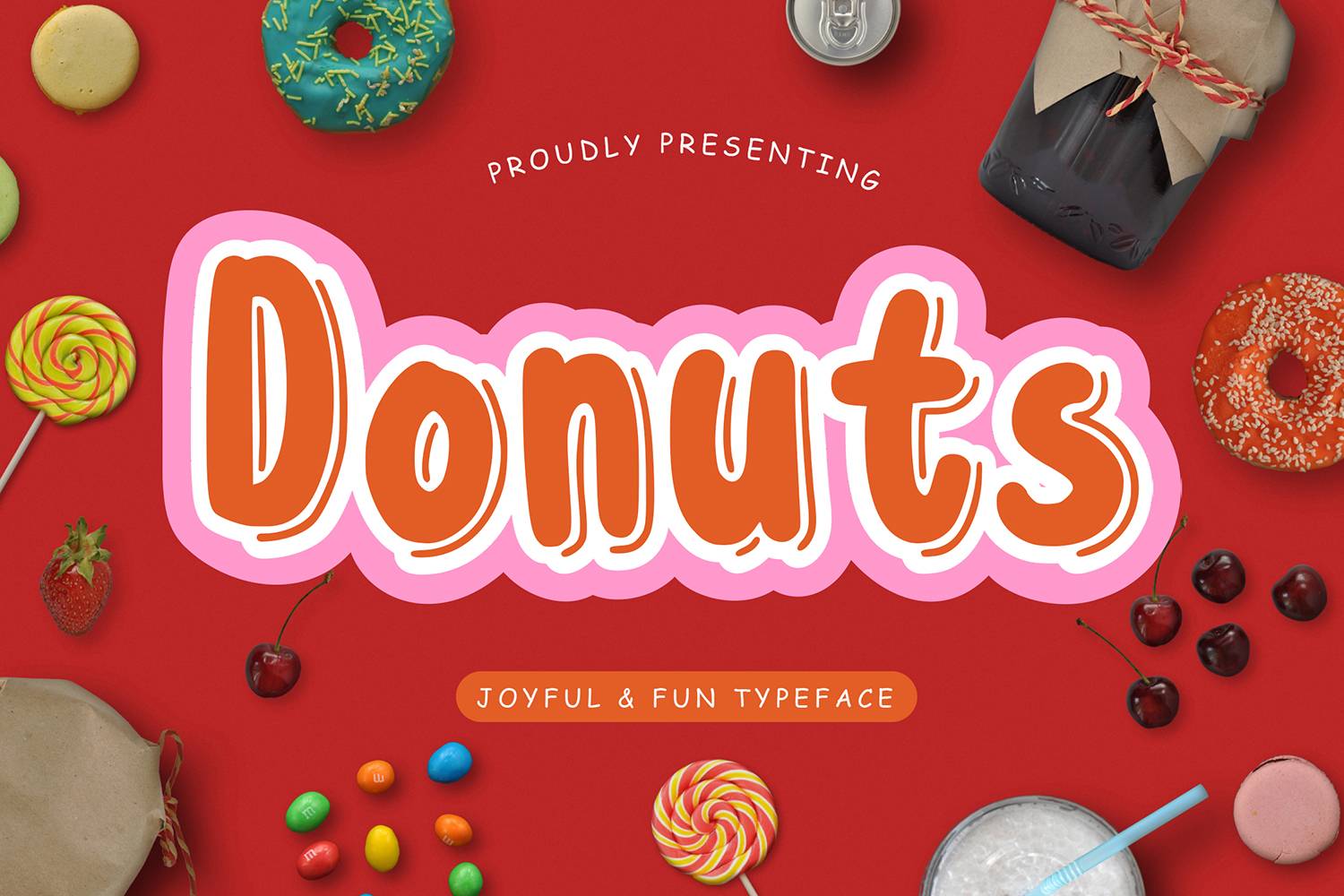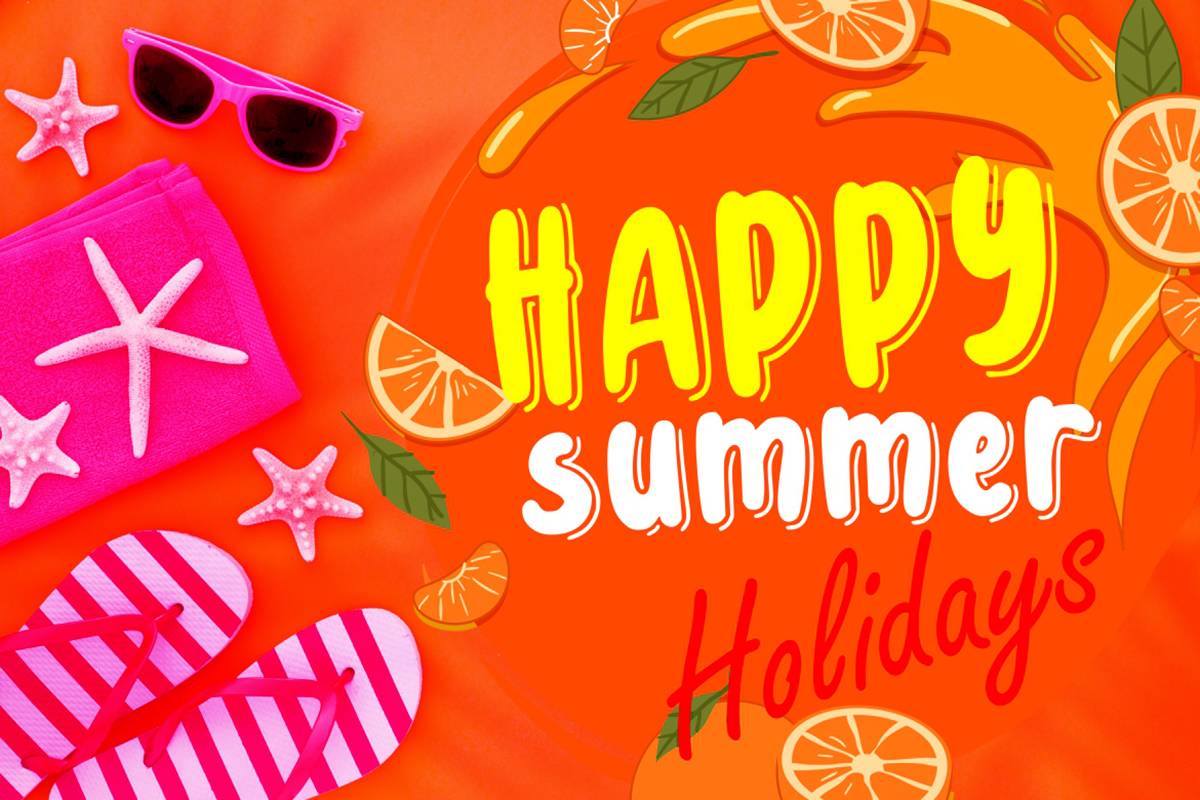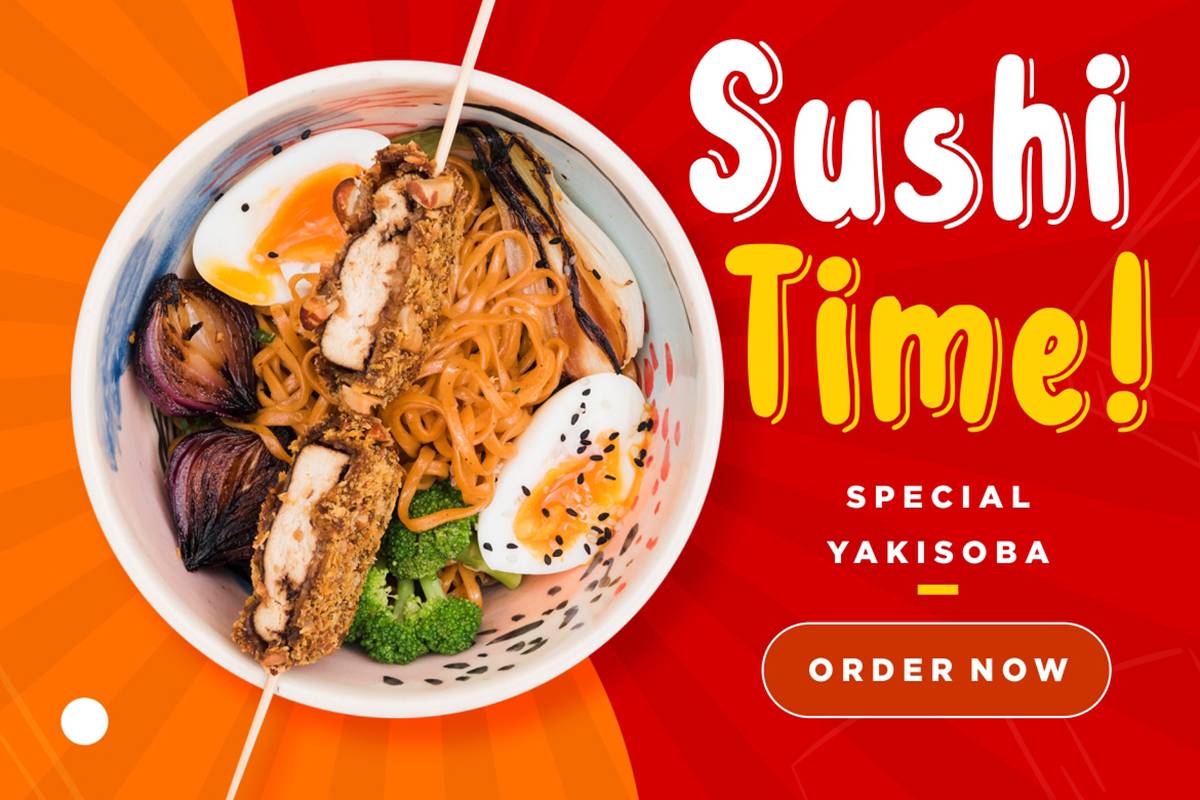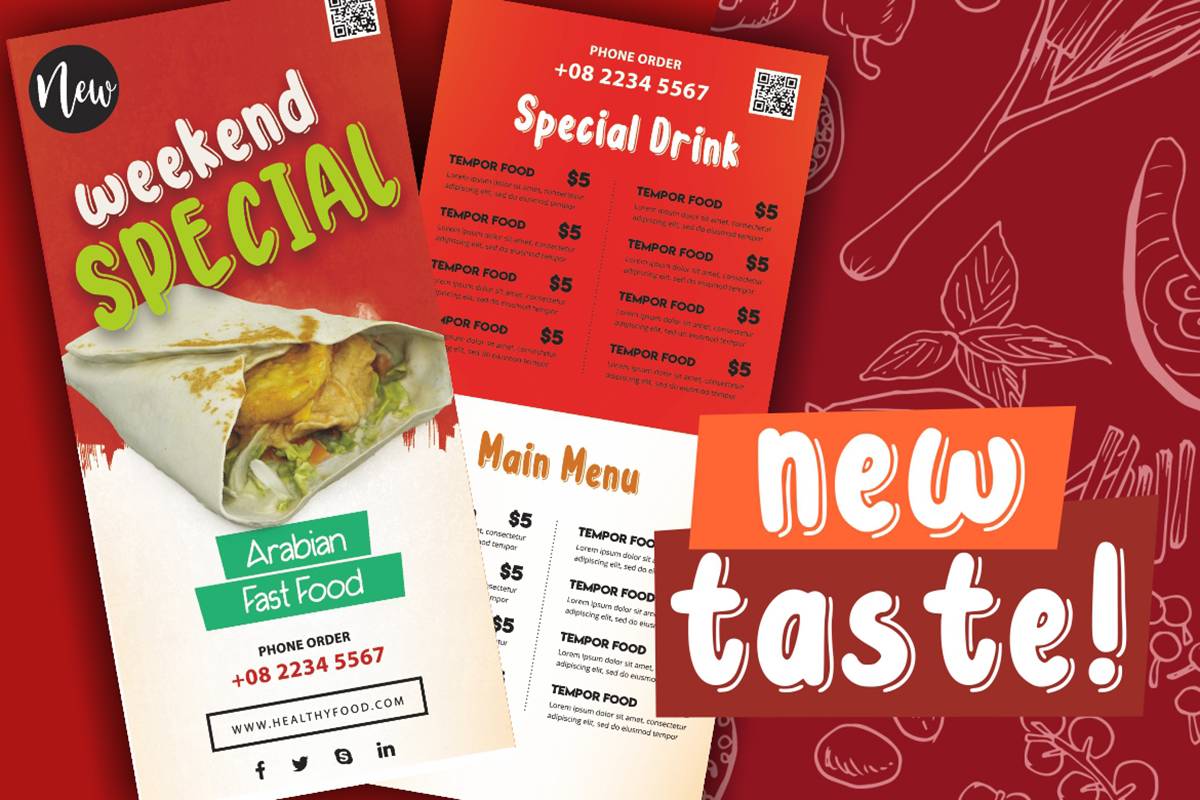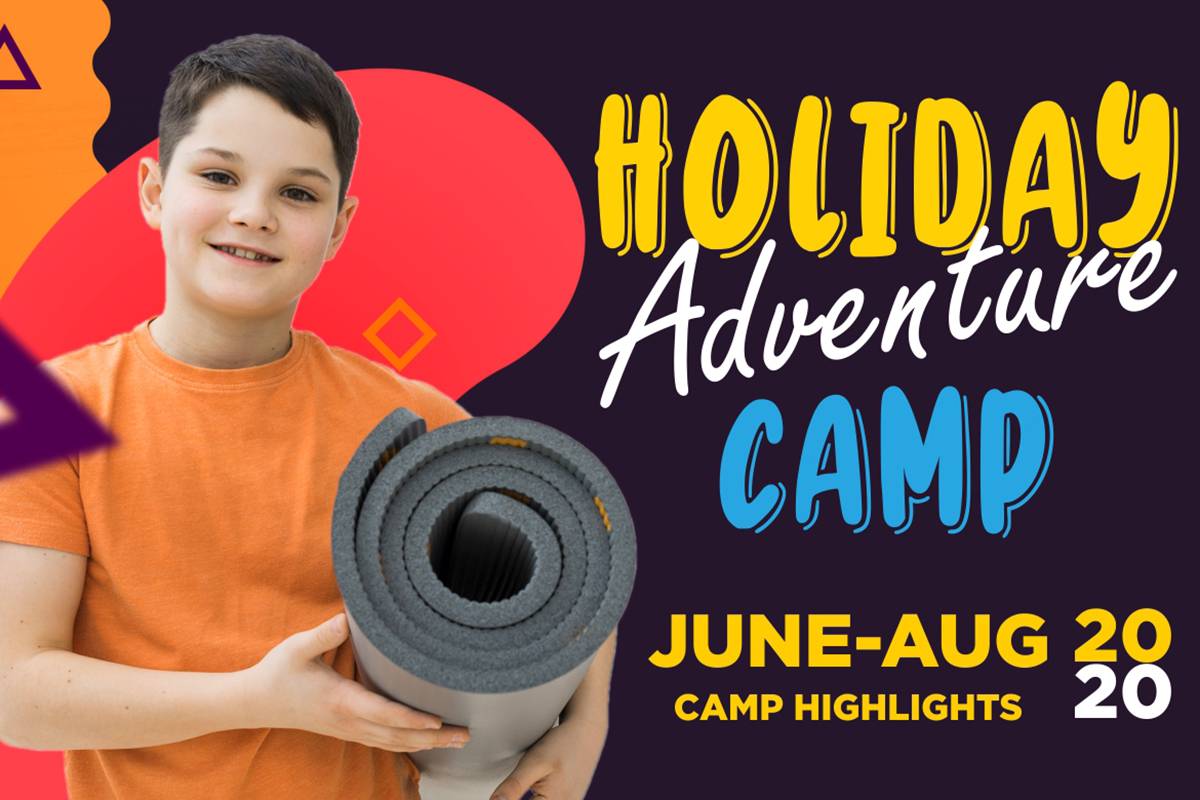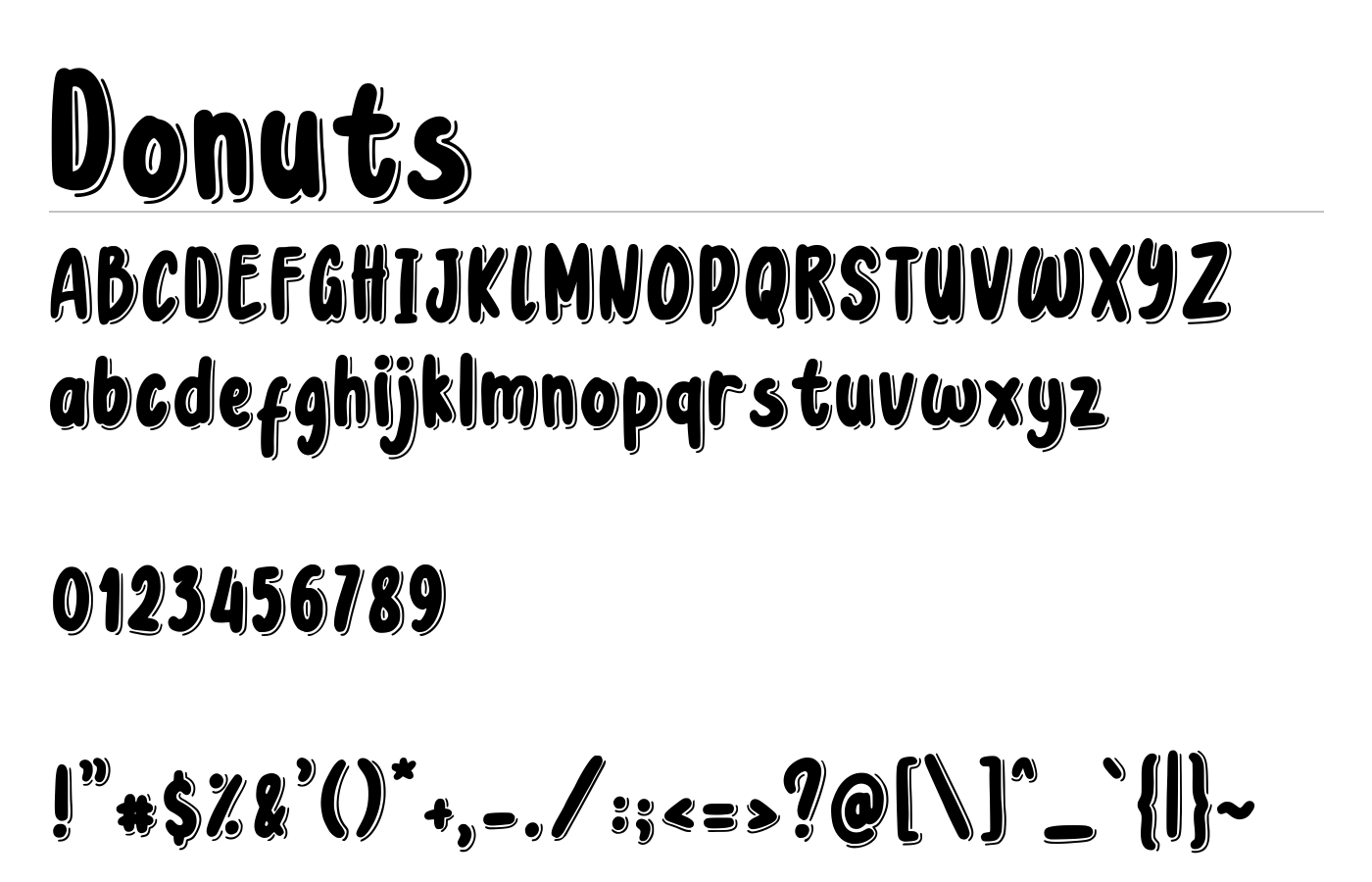
Donuts Font is a bold, playful sans serif with an energetic and whimsical vibe, featuring thick rounded strokes and a subtle shadow effect that adds depth and a fun, hand-drawn feel. Its casual letterforms and lively style make it perfect for children's designs, informal branding, packaging, and lively headlines that need to capture attention with a friendly and approachable tone. This font works best in creative, lighthearted contexts where a vibrant, cheerful mood is desired.
Donuts Font
About Donuts Font